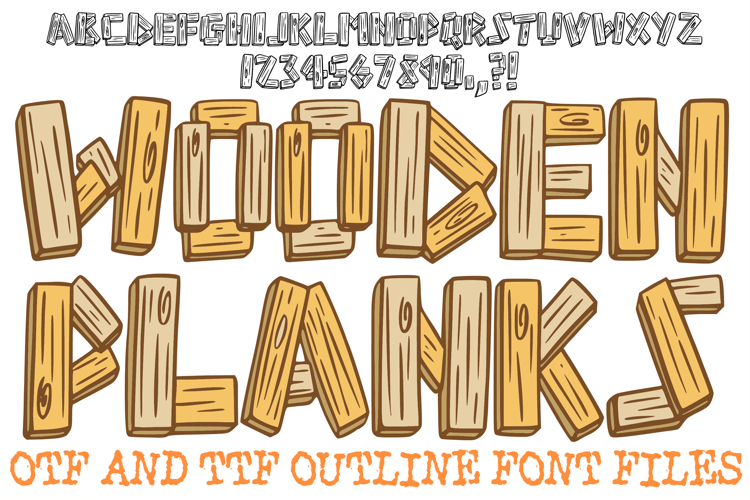
Wooden Planks Lettering Font Wood Texture ABC OTF Type
The Wooden Planks Font is a rustic, hand-drawn display typeface that captures the raw, organic charm of weathered timber. Featuring chunky, overlapping wood slats and realistic grain textures, this font is the perfect choice for farmhouse branding, outdoor adventure graphics, cabin-themed decor, and bold "lumberjack" aesthetic designs.
Each character is meticulously crafted with a sturdy, artisan feel, blending rectangular plank geometry with natural knots and splintered edges that make your text appear as if it were nailed together by hand. Whether you are a designer creating a logo for a carpentry business or a crafter working on summer camp party favors, the Wooden Planks Font adds a timeless, handcrafted touch to every project.
Artisan Timber Lettering: Every letter (A–Z) and number (0–9) features unique wood grain patterns and realistic plank silhouettes inspired by reclaimed barn wood.
Clean Hand-Drawn Outlines: The bold, well-defined black outlines are optimized for layered paper cutting, heat transfer vinyl, and high-quality sublimation.
Rustic & Versatile: The heavy weight and "constructed" wood aesthetic make it ideal for BBQ restaurant branding, nautical signage, and impactful country-style holiday decor.